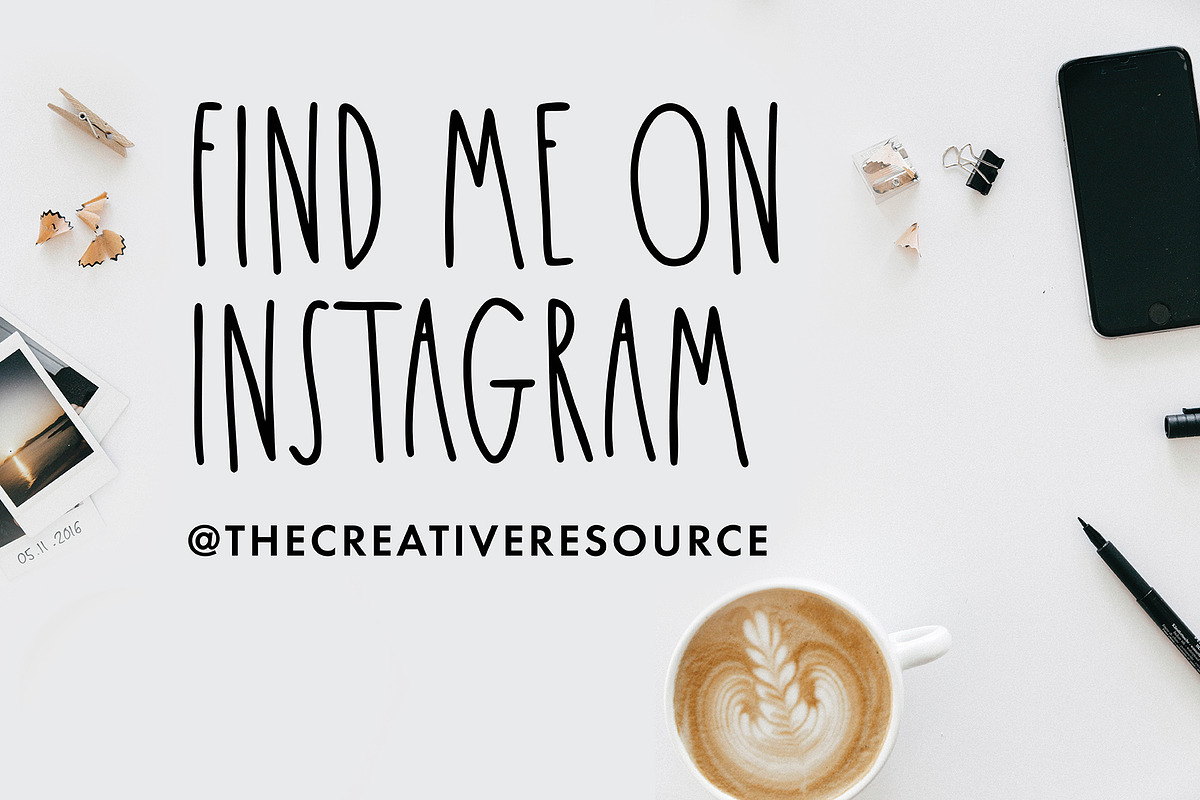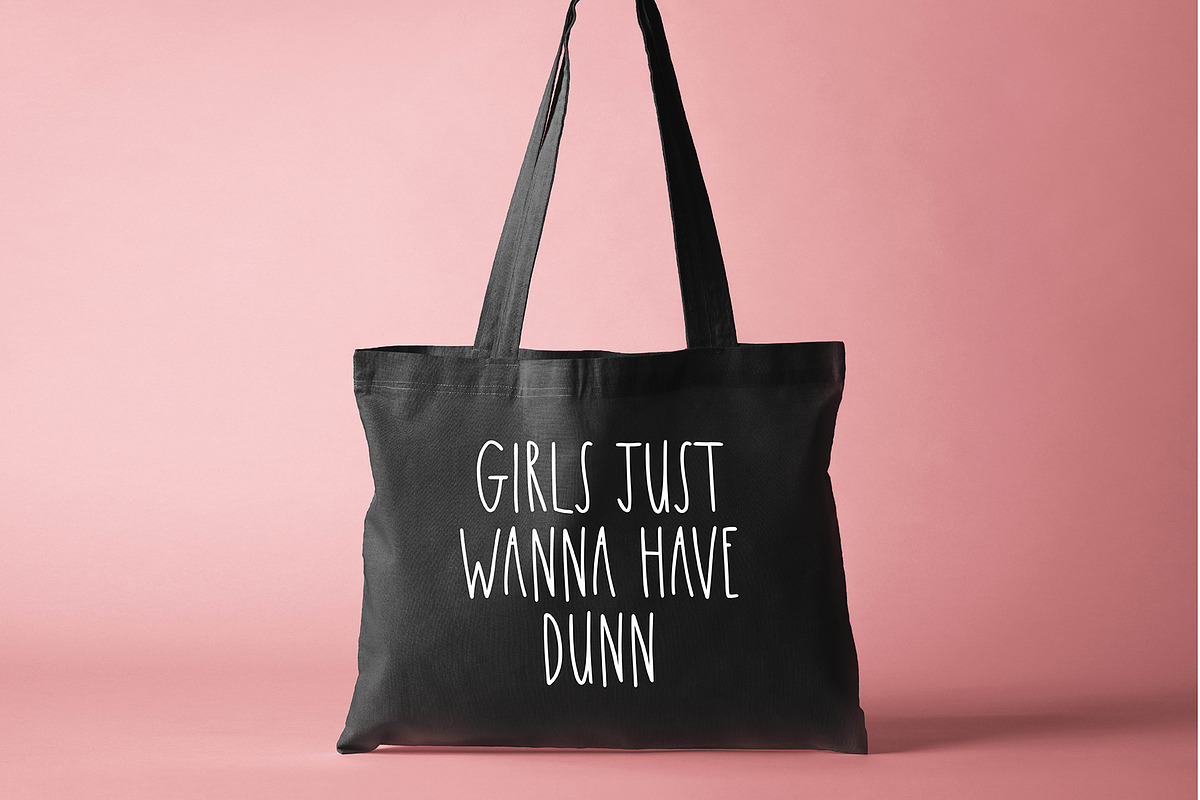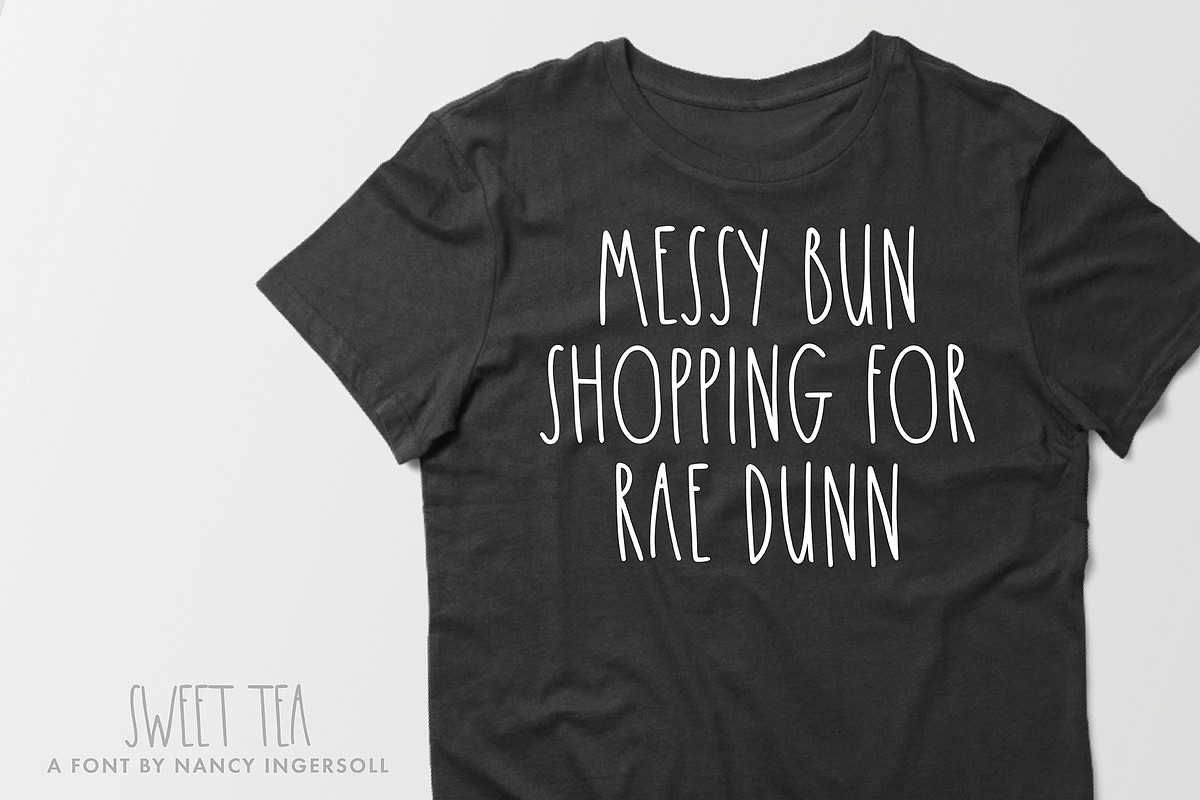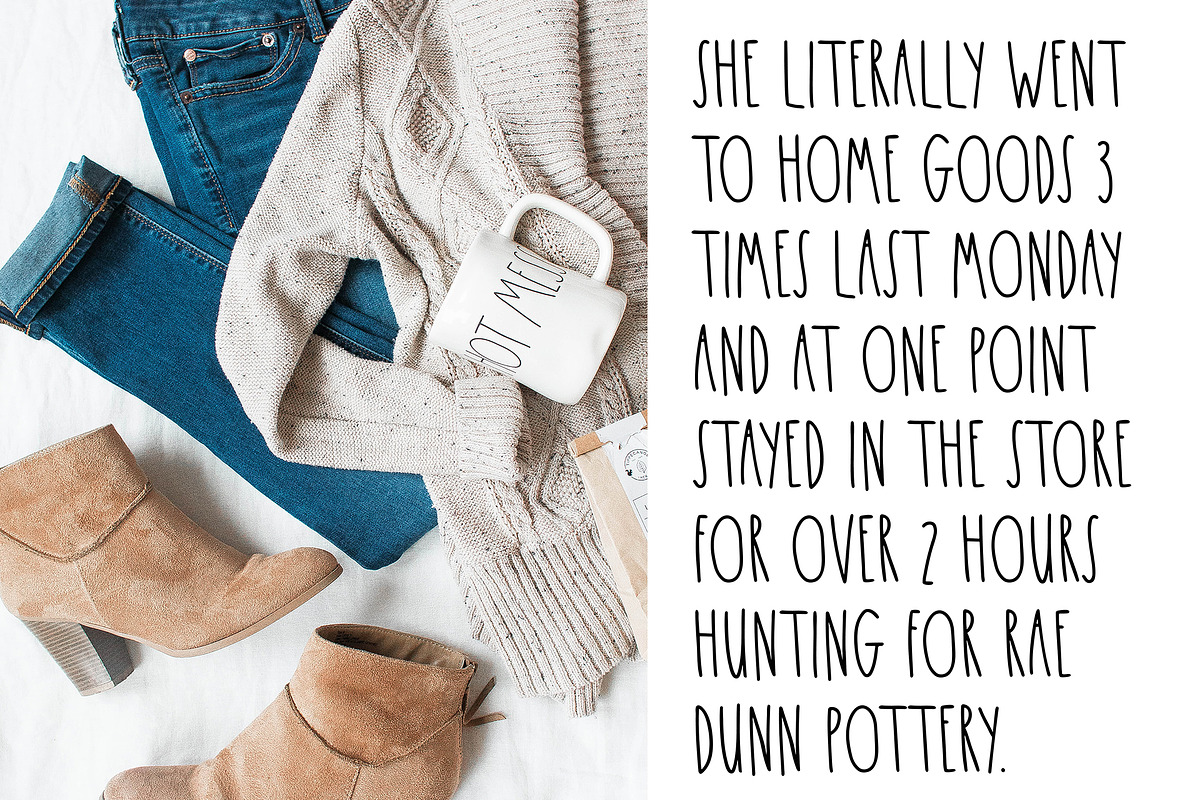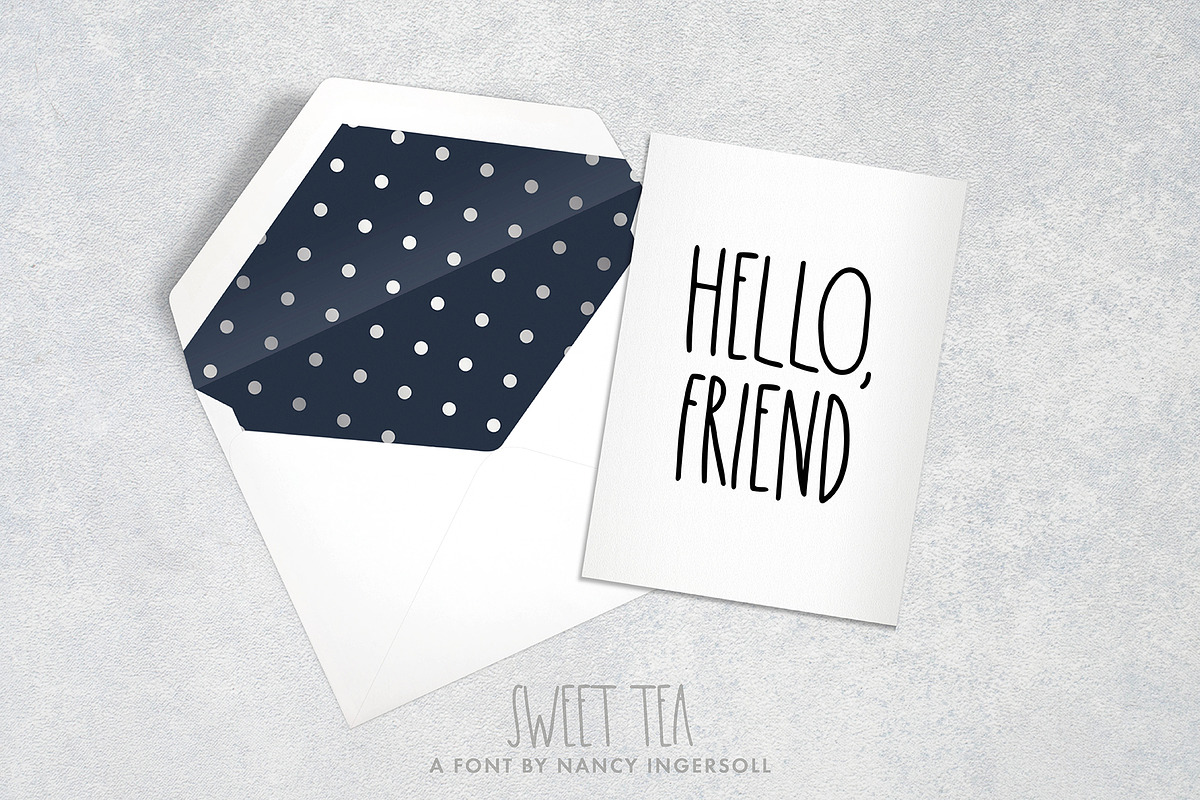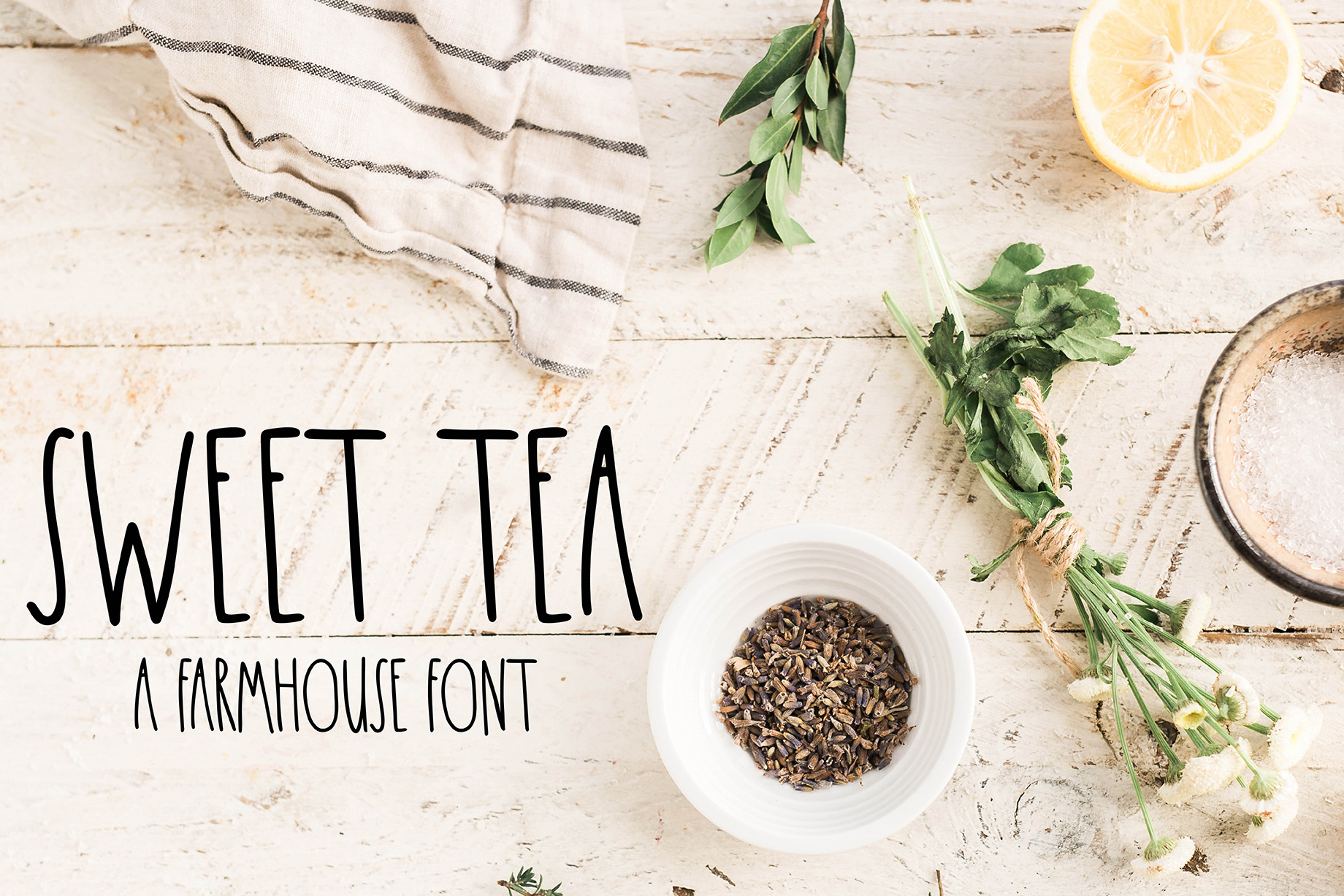
Sweet Tea - A Farmhouse Font
With the popularity of my pantry label cut files, I am also releasing the font so that you can type out whatever your needs may be with this tall, skinny, and slightly imperfect farmhouse chic hand lettered font.
[update Sept 2020: this file now includes two thicknesses Sweet Tea Black is a little thicker and Sweet Tea Lite is thinner. Both thicknesses are included].